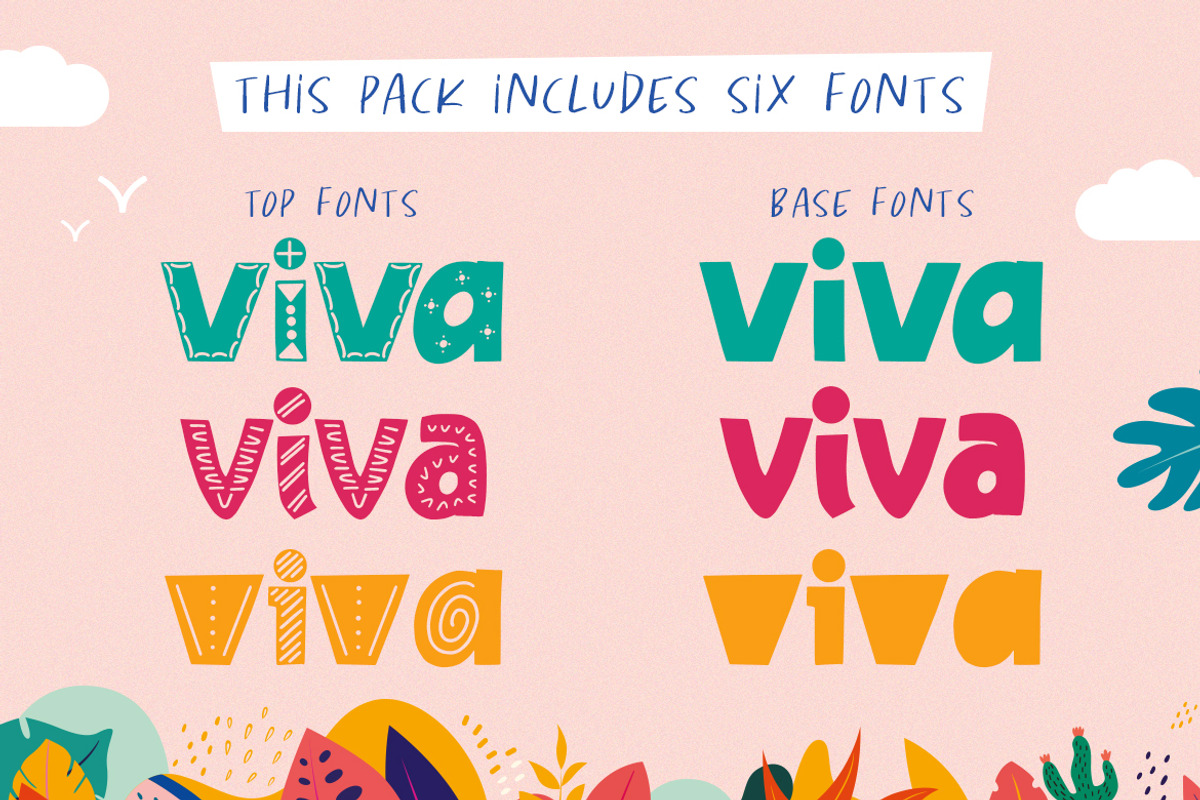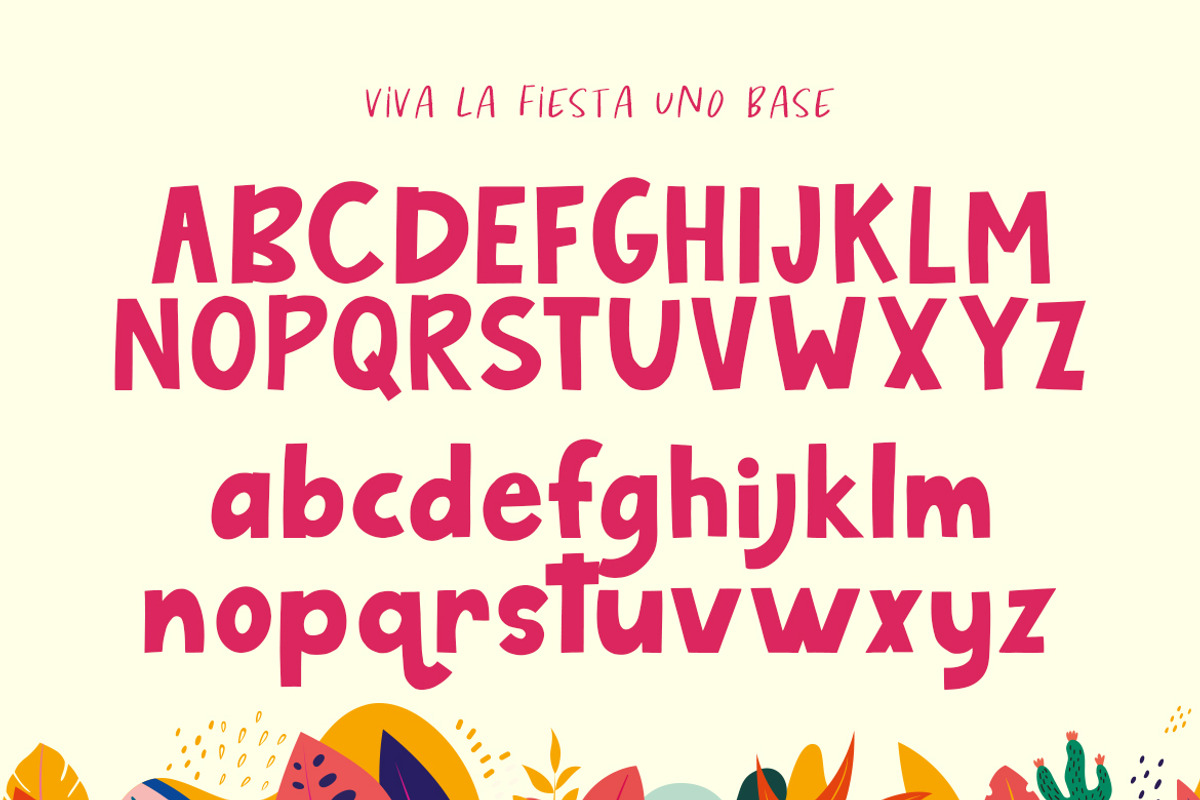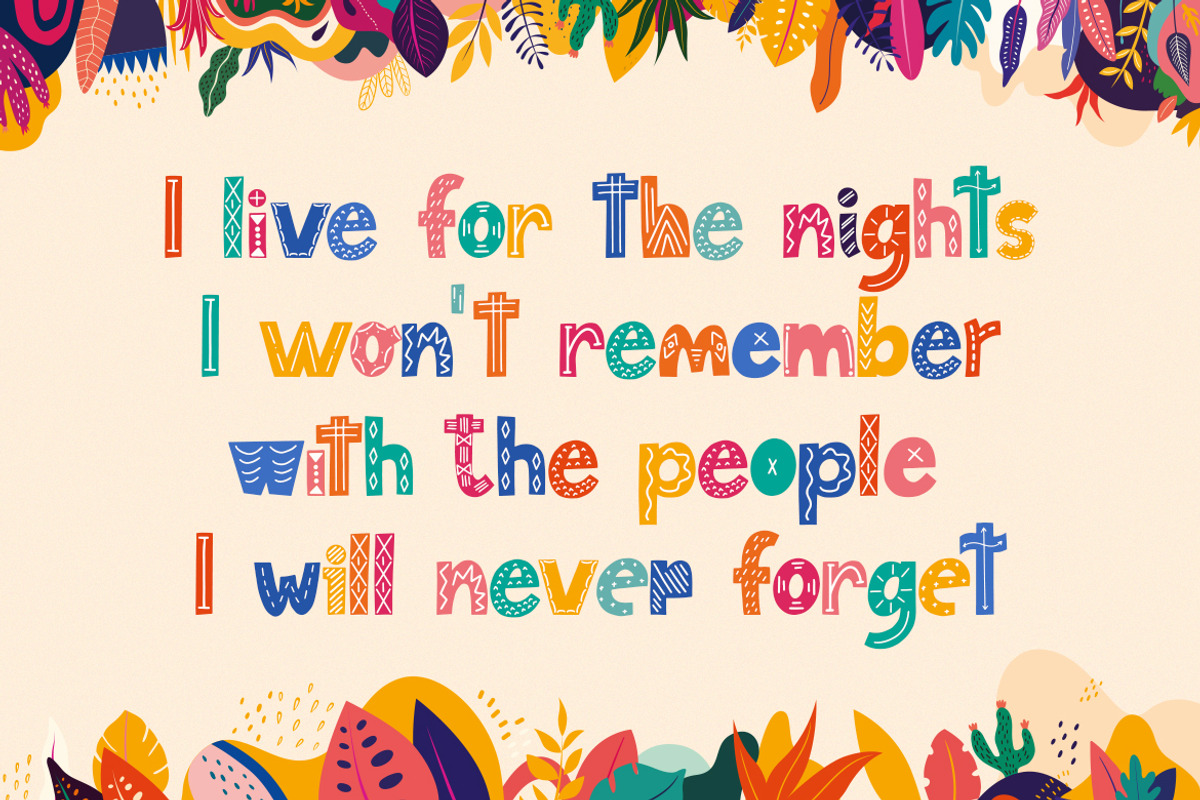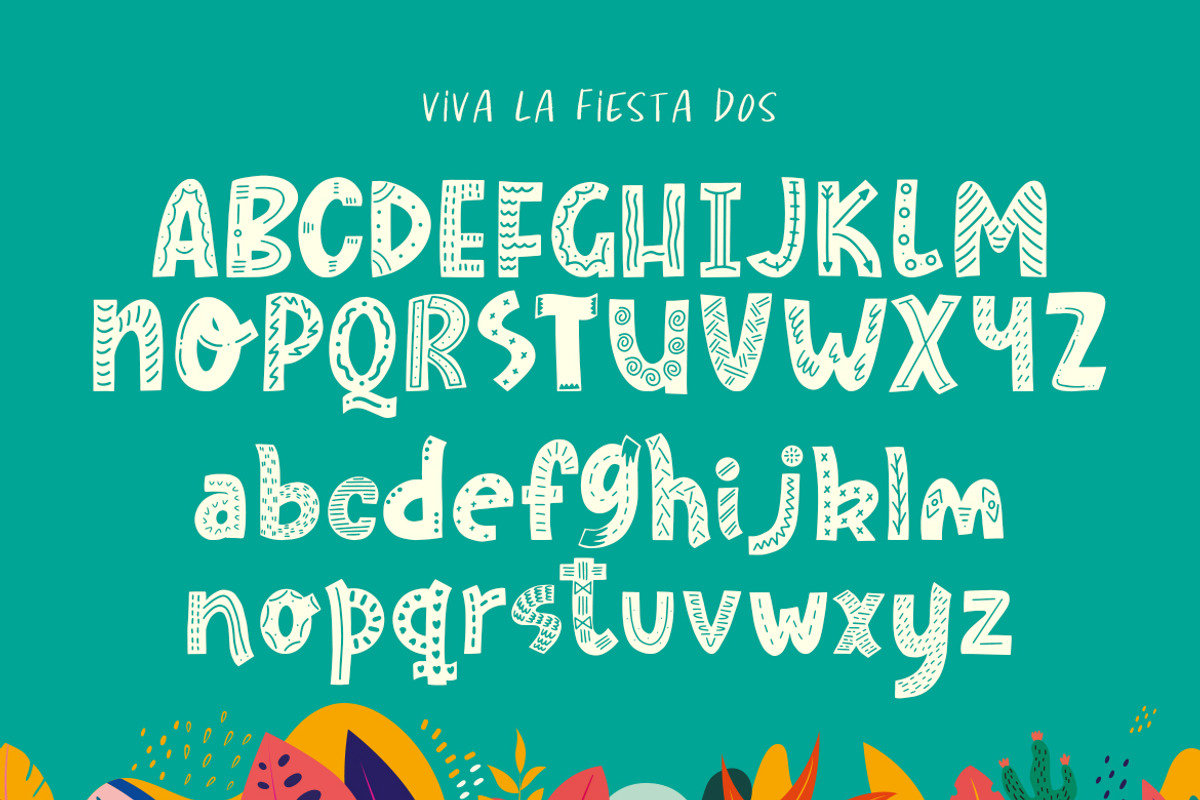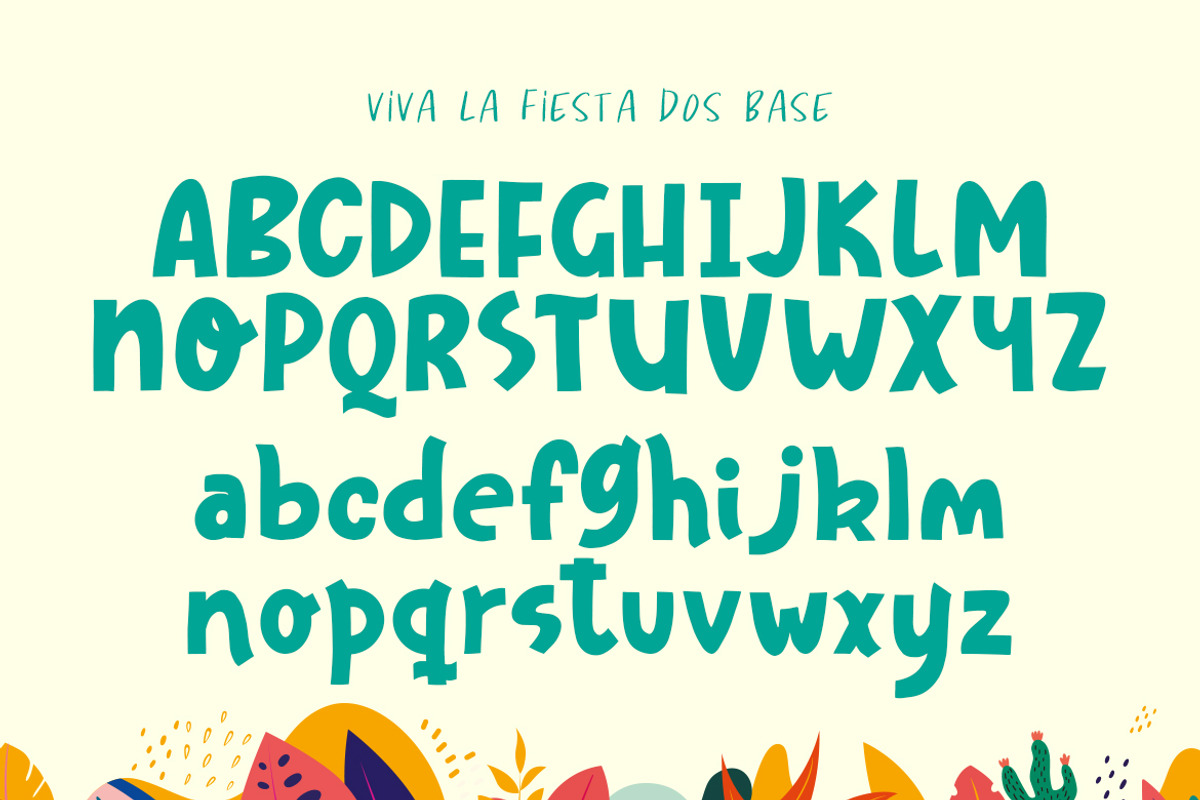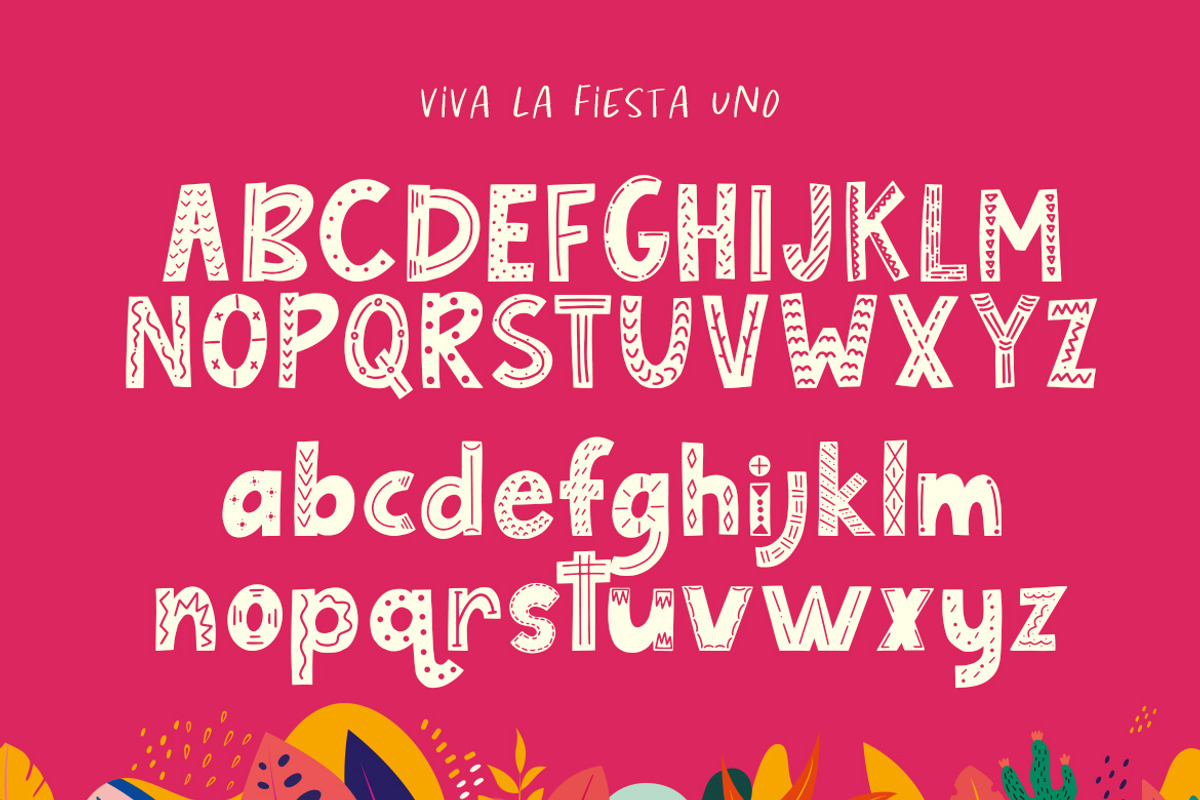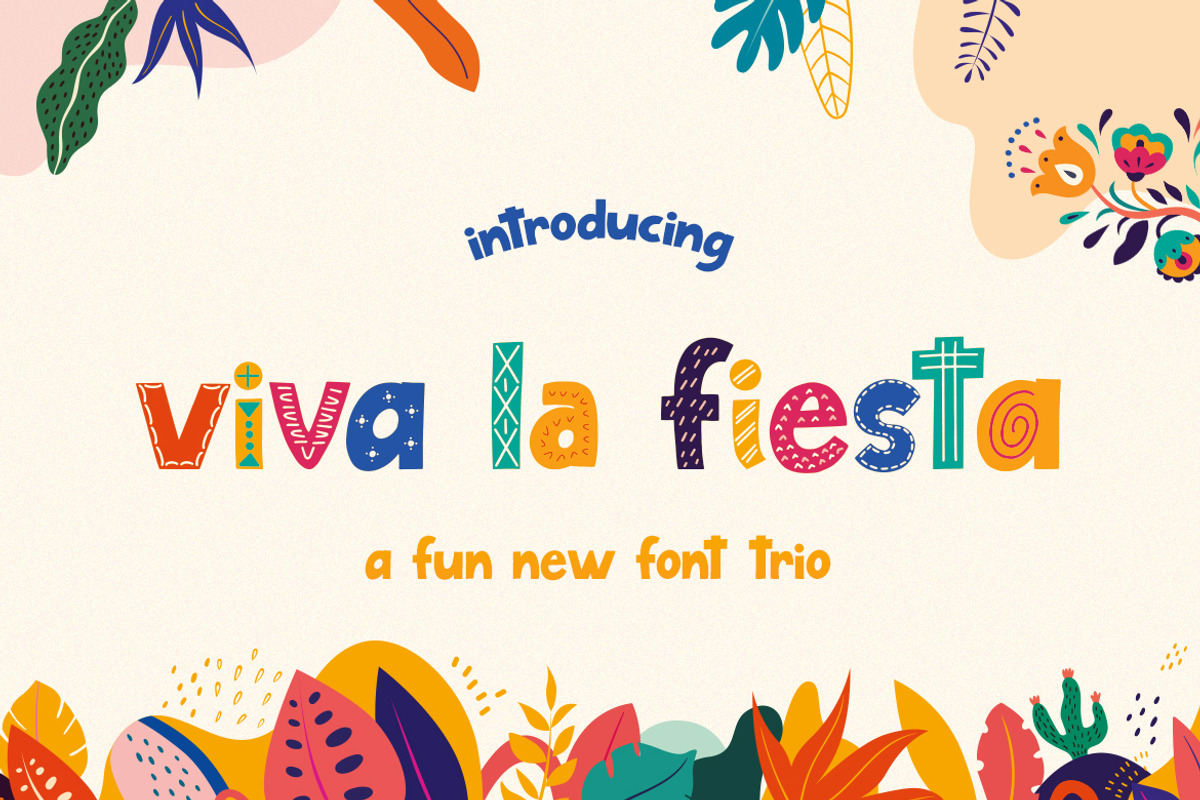
Viva La Fiesta Font Trio
Why Viva La Fiesta Font Trio is worth a look
Viva La Fiesta Font Trio by Salt & Pepper Designs fits naturally into Branding, posters, packaging, typography.